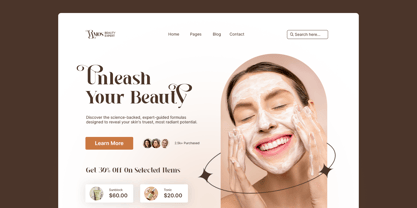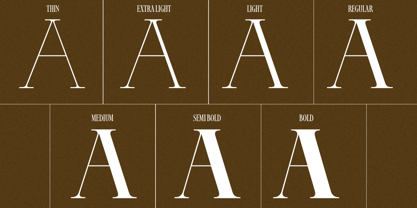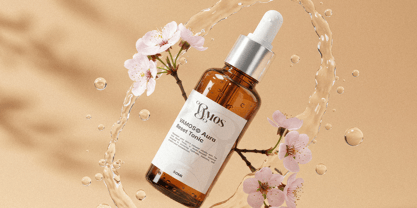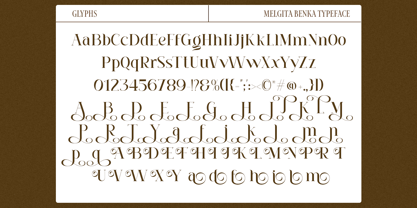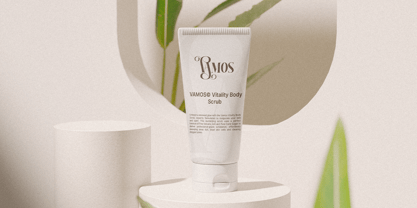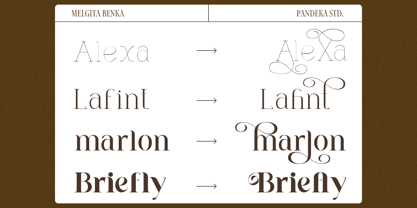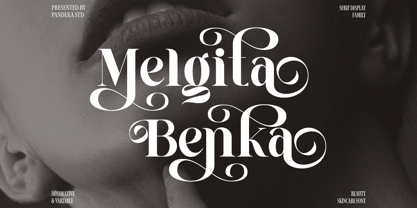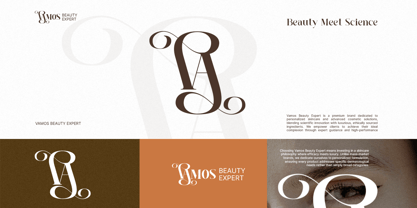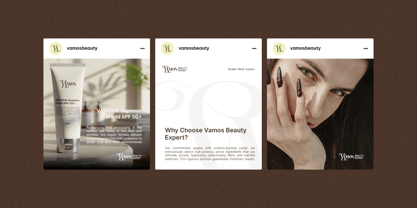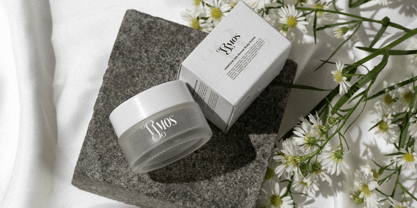
Melgita Benka is an elegant serif font crafted specifically for beauty, skincare, cosmetic, and wellness branding. Designed with soft curves, refined contrast, and luxurious letterforms, this font brings a premium and soothing aesthetic to any visual identity.
Featuring 7 styles—Thin, Extra Light, Light, Regular, Medium, Semi Bold, and Bold—and more than 77+ alternates, Melgita Benka allows designers to create beautifully customized typography for skincare packaging, beauty ads, social media templates, product labels, promotional graphics, and high-end editorial layouts.
Its delicate swashes and expressive alternates blend perfectly with minimal, clean, and modern skincare visuals, making every design feel exclusive, elegant, and effortlessly premium. Ideal for luxury skincare brands, cosmetic labels, beauty spas, wellness products, and soft lifestyle aesthetics.
• 7 Styles Family: Thin, Extra Light, Light, Regular, Medium, Semi Bold, and Bold
• Full Character Set: Uppercase, lowercase, numbers, symbols, and punctuation
• 77+ Swash Alternates
Melgita Benka